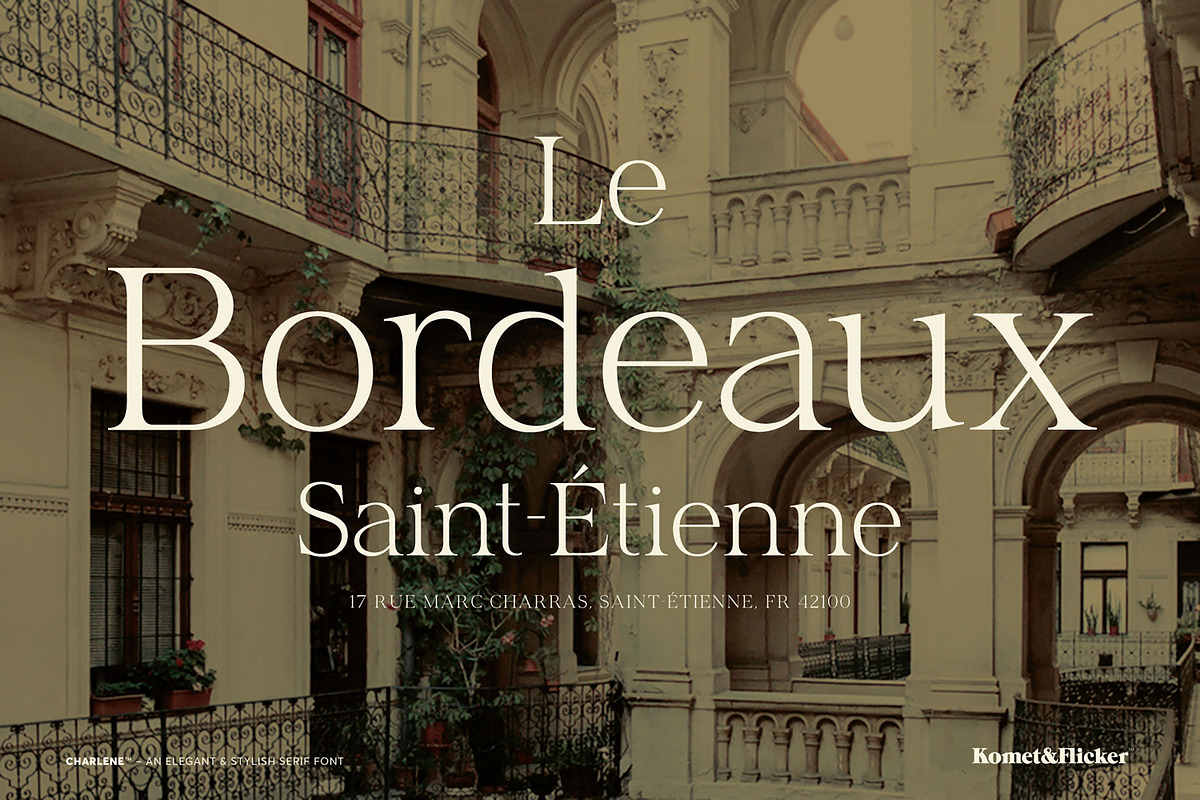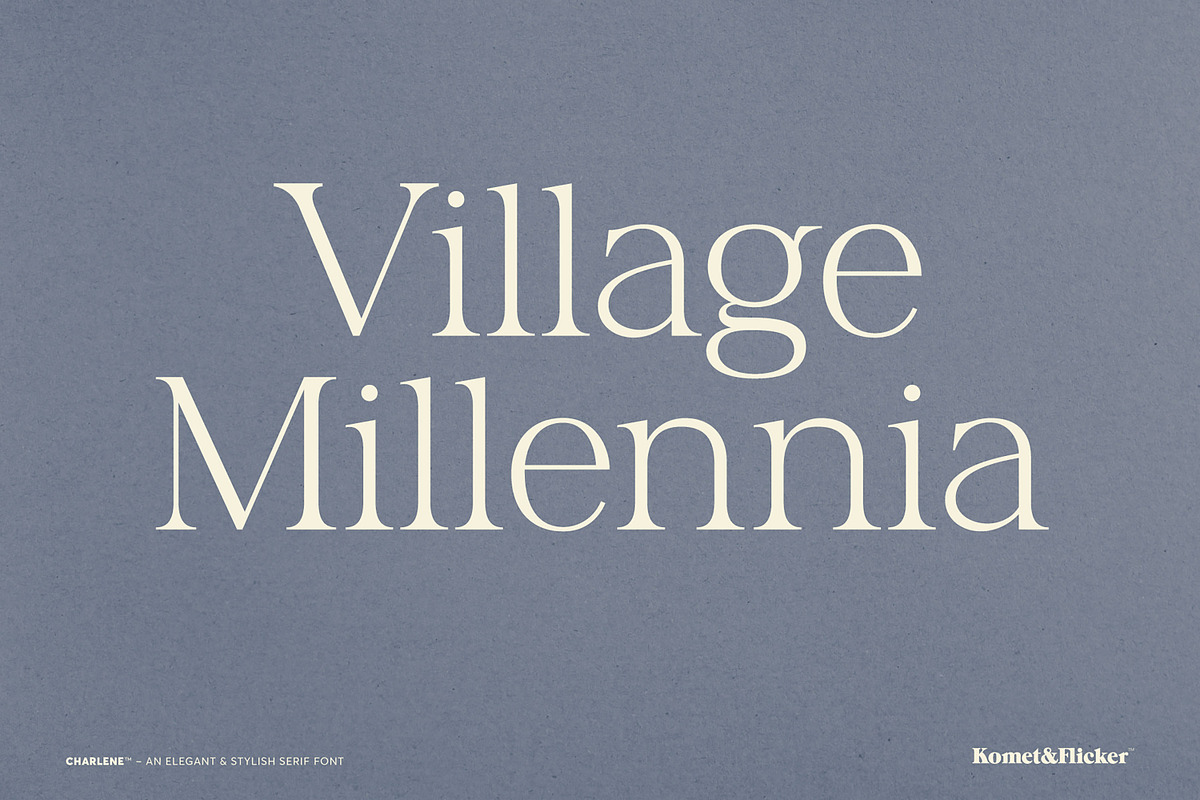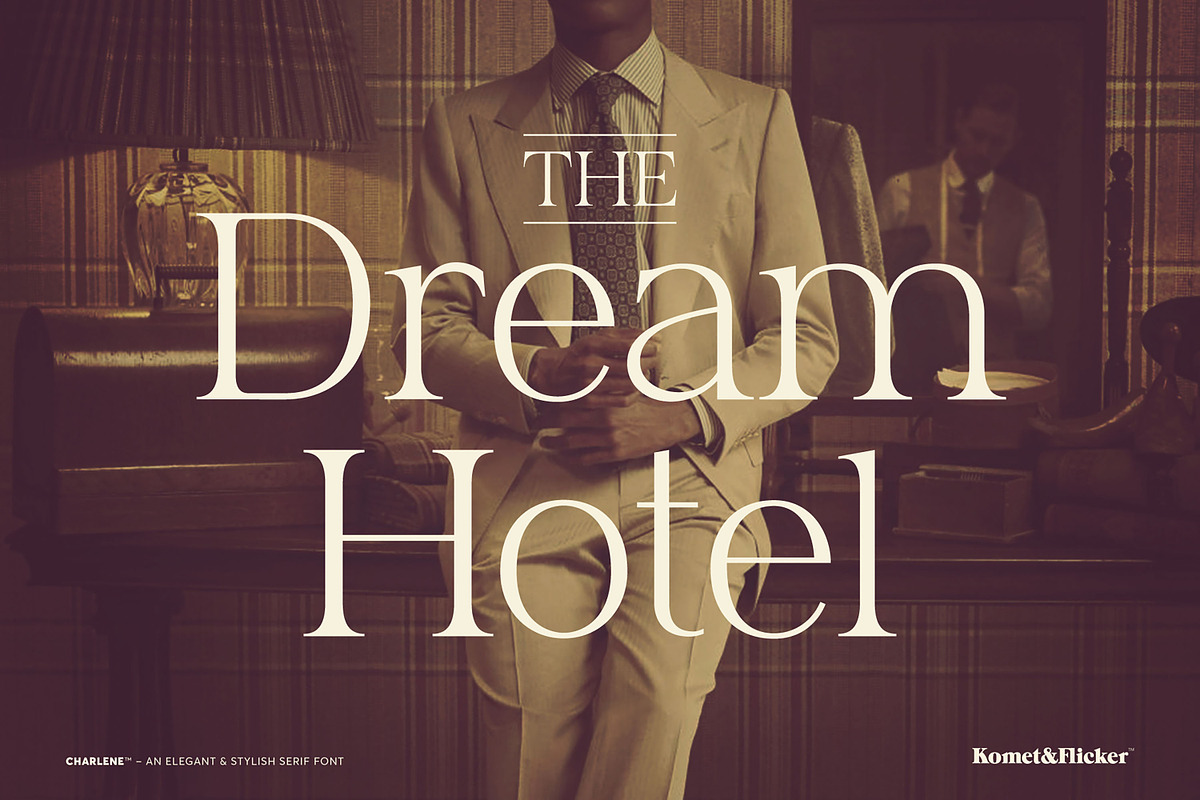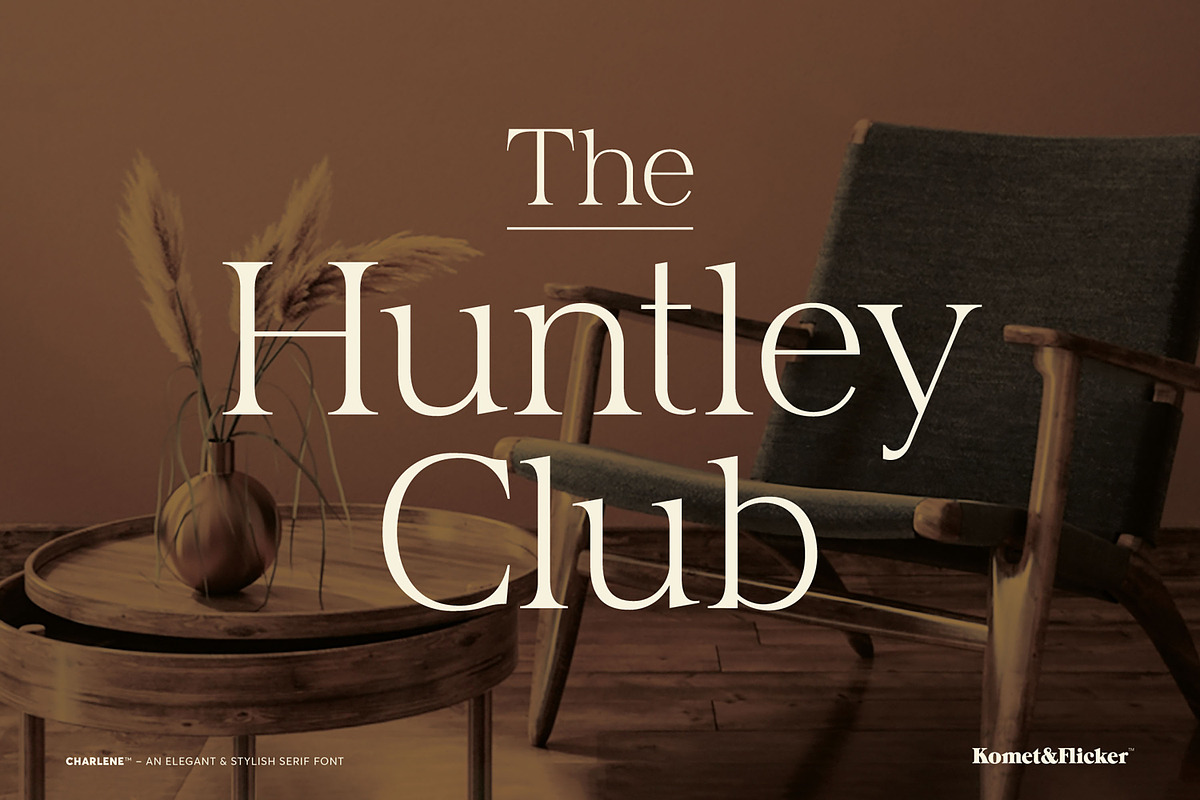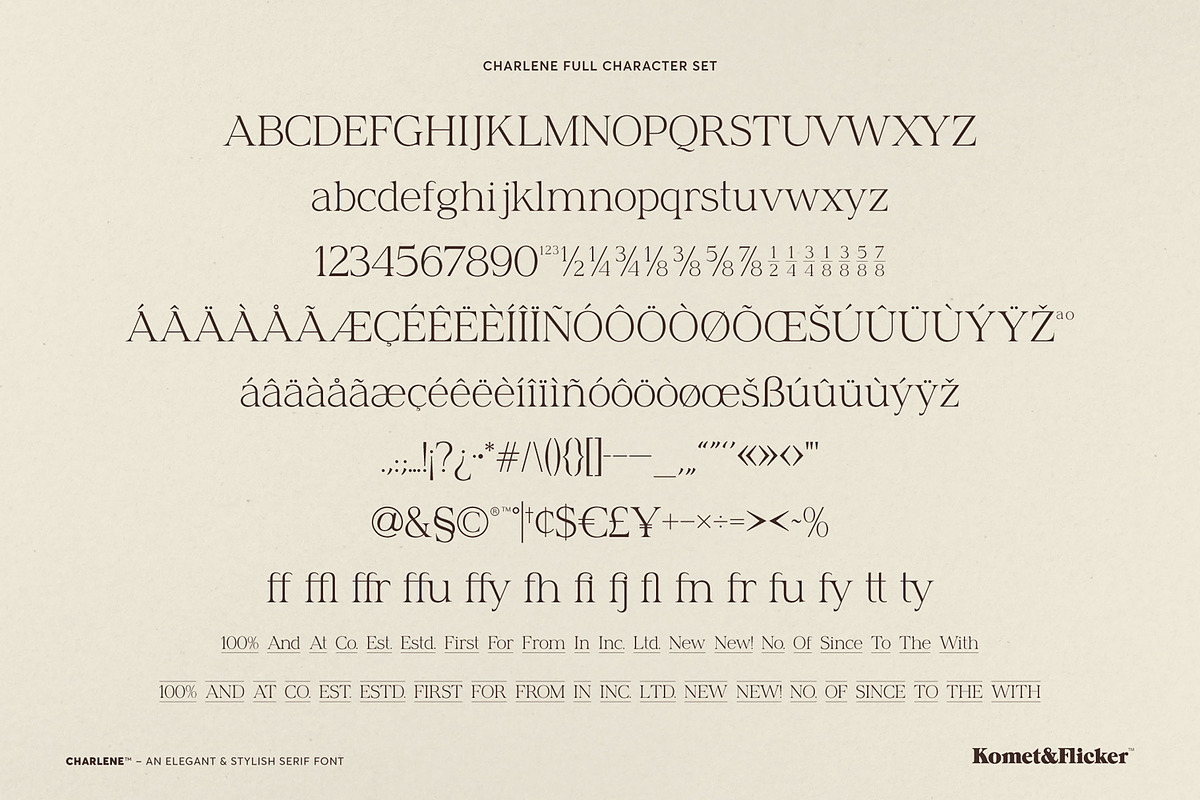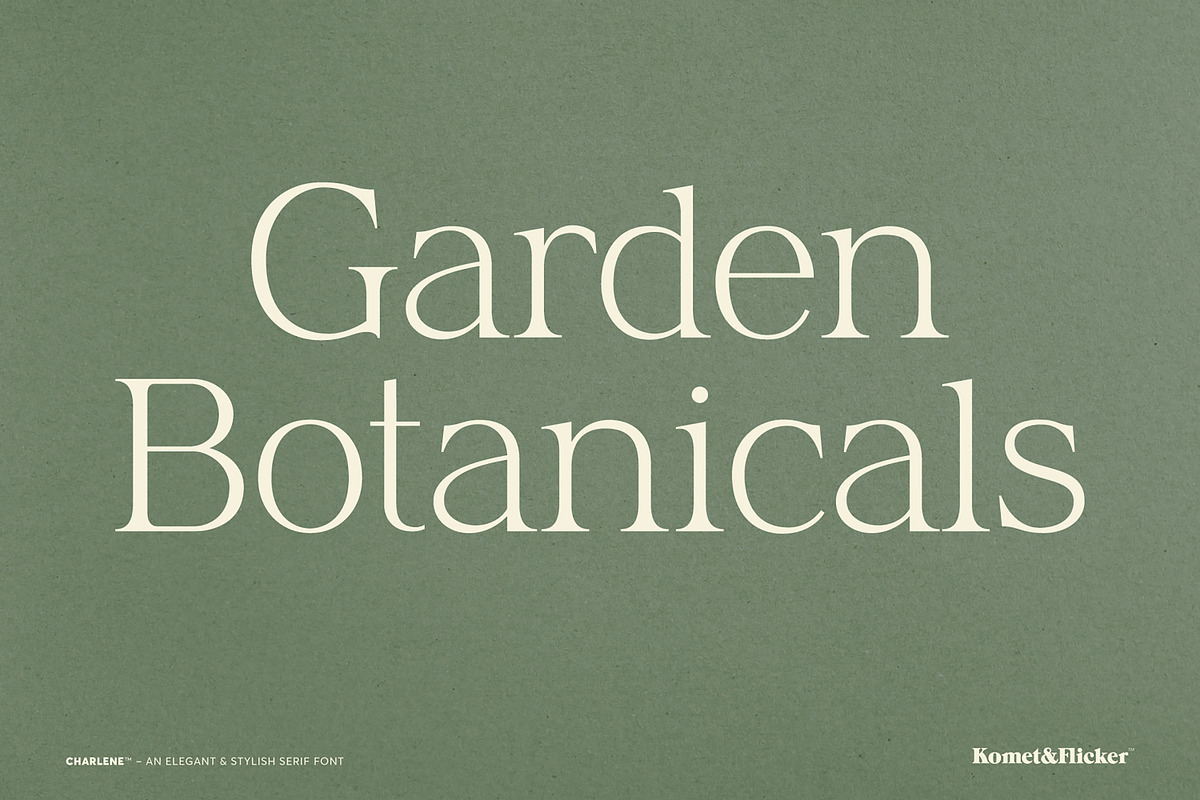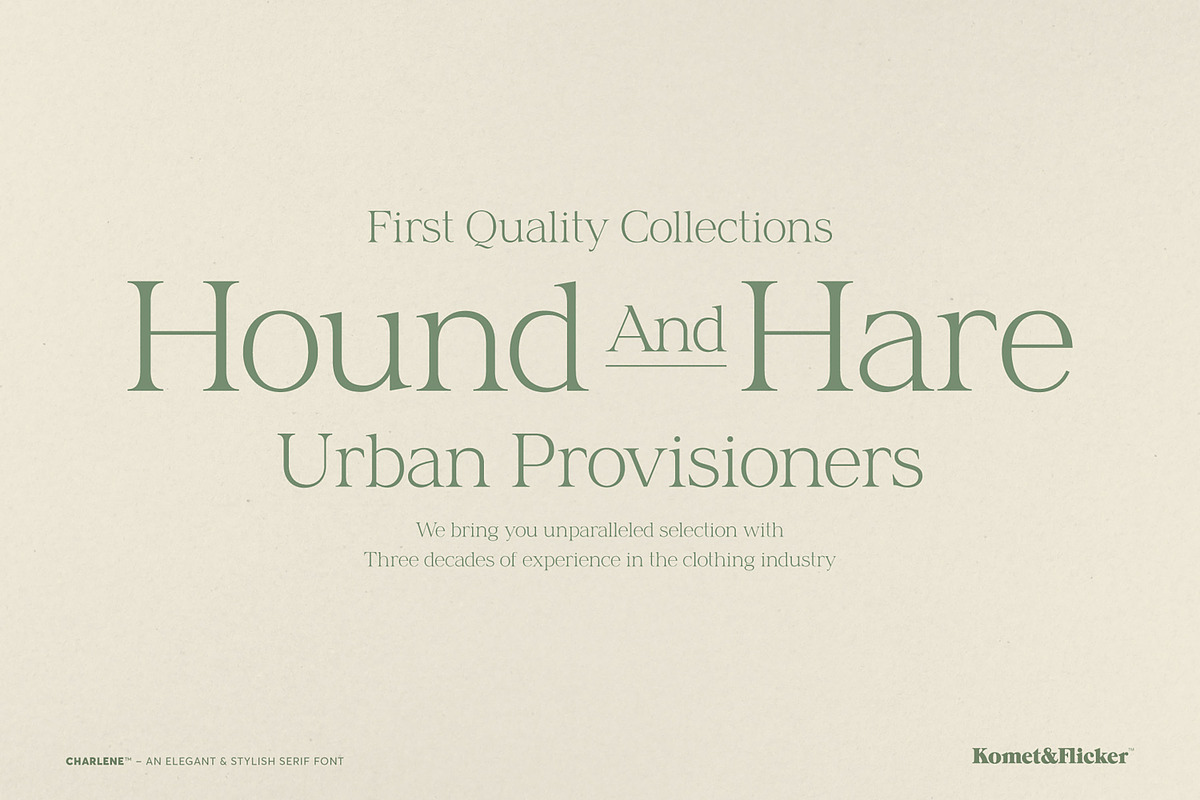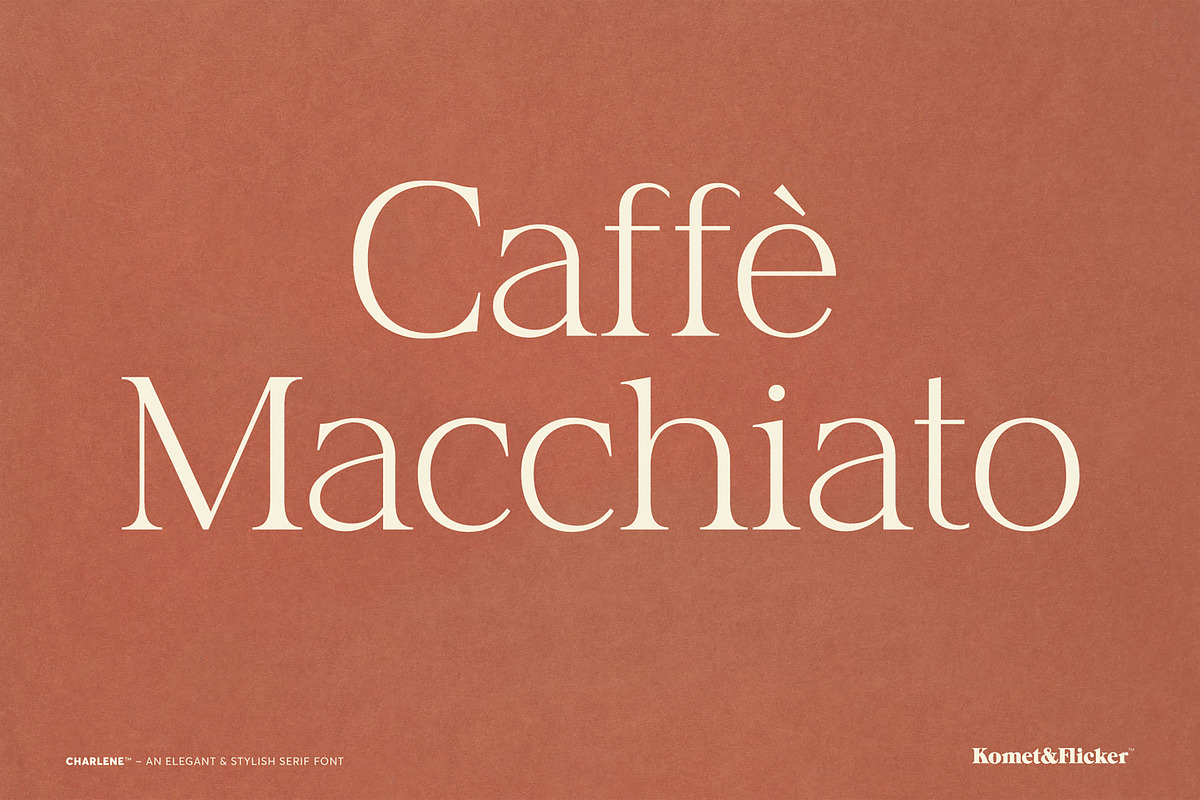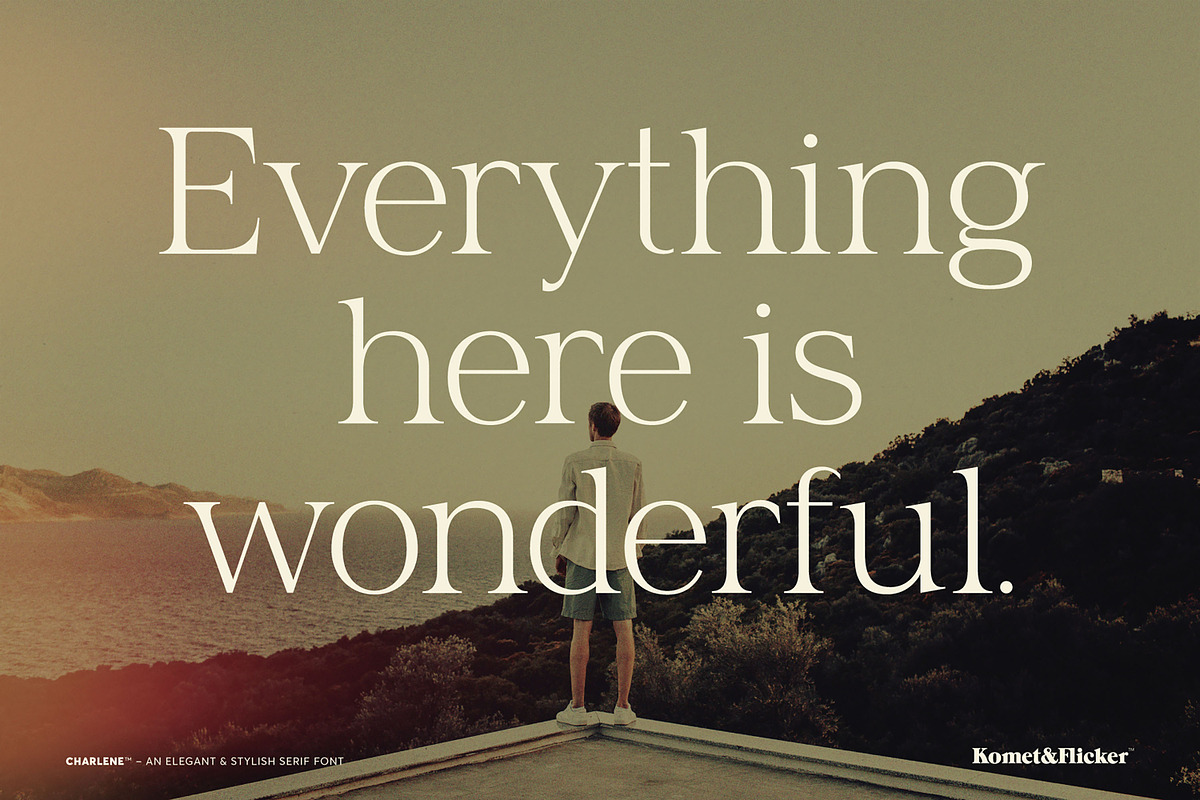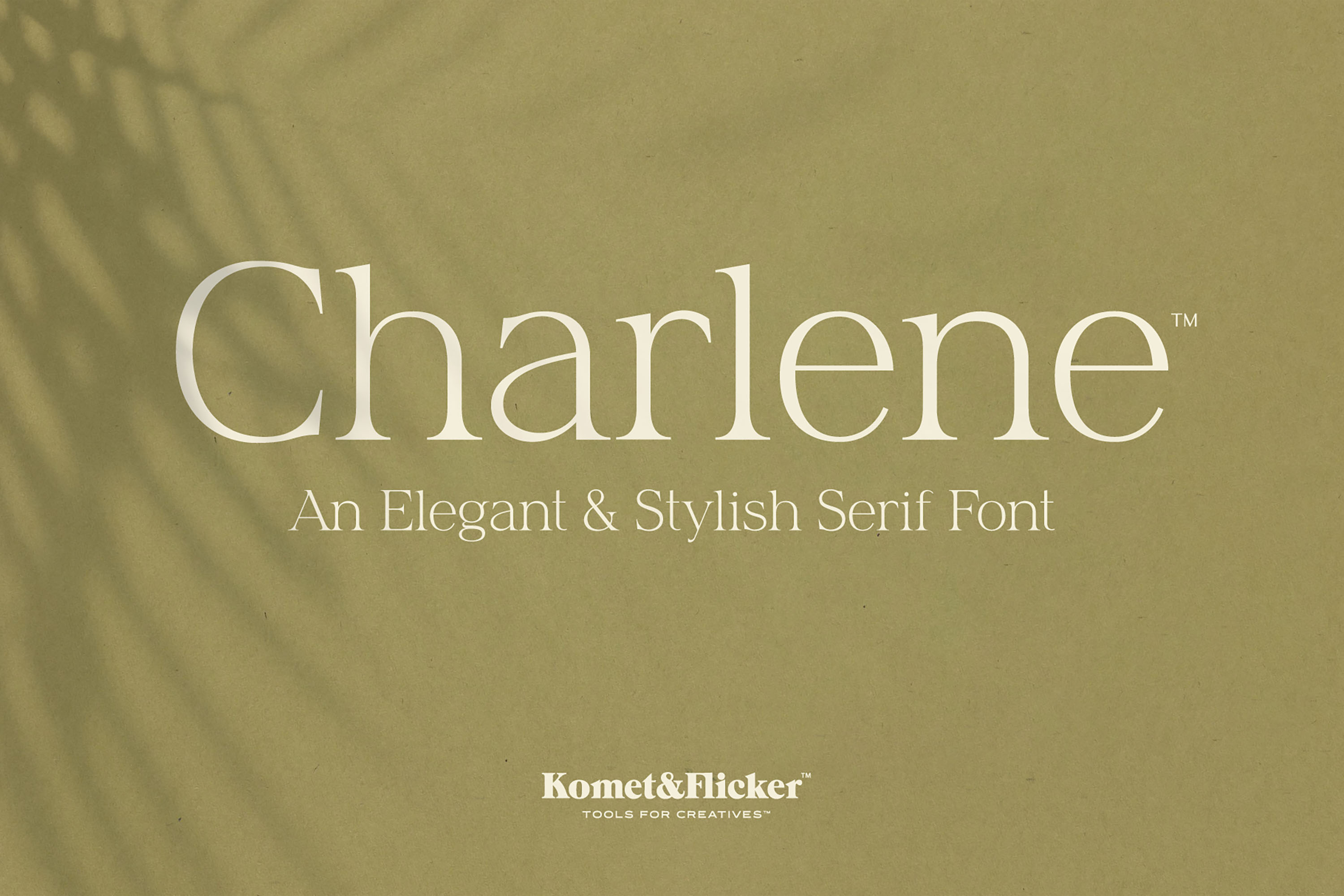
Charlene - An Elegant & Stylish Font
Introducing Charlene, an elegant and stylish serif font designed to bring refined sophistication to your typography. With graceful curves and a timeless structure, Charlene exudes charm and professionalism, making it ideal for editorial design, branding, packaging, and high-end invitations.
Charlene includes a set of 15 custom ligatures, adding a unique flair and improved flow to your text. In addition, this font also includes a set of 20 custom connecting words (such as: and, the, from, to) available in both caps and lowercase styles.
Whether you're designing a luxurious logo or laying out the pages of a fashion magazine, Charlene is the perfect choice for creators who demand both beauty and precision in their type.
Full A-Z basic latin characters
Select European specific characters
Numbers, punctuation, and select symbols
Two styles of pre-made common fractions
A set of 15 custom ligatures
A set of 20 custom connecting word glyphs in two styles